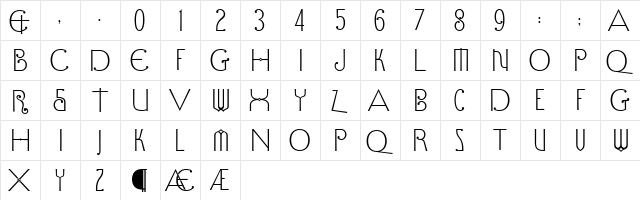
VereDignum LT Std Decorative Regular
| Foundry | Linotype Library GmbH |
| Designer | Phil Baines |
Design Context for VereDignum LT Std Decorative Typeface
VereDignum LT Std Decorative is built around its visual character rather than neutral utility — its distinctive forms are designed to make an impression at display sizes. Its slender proportions lend an understated elegance to any composition.
Font Pairing: Pair with a clean neutral sans-serif for body copy to let VereDignum LT Std Decorative's character lead without overwhelming the composition.
Pro Tip: Treat VereDignum LT Std Decorative as the centrepiece of your typographic hierarchy. One strong heading set in a decorative face can carry an entire layout.